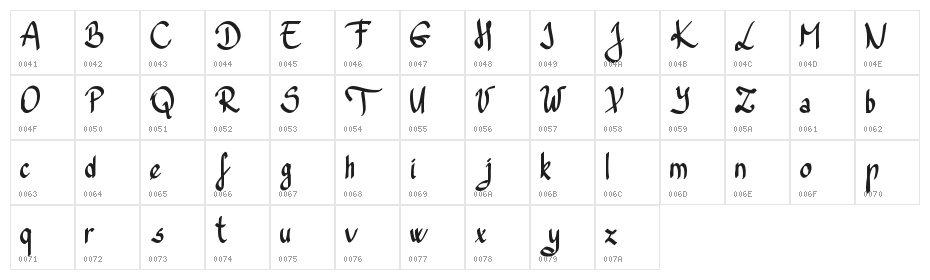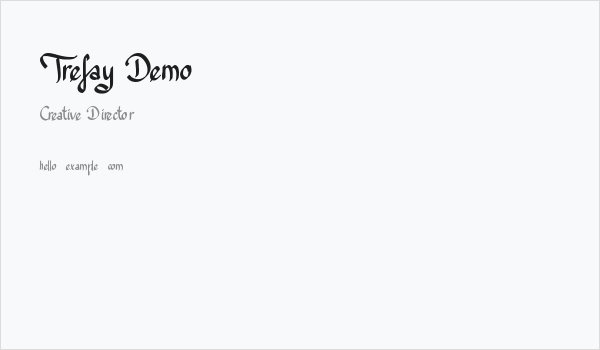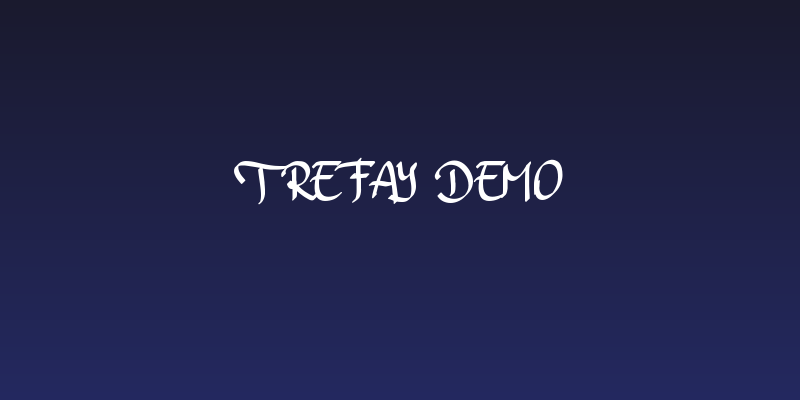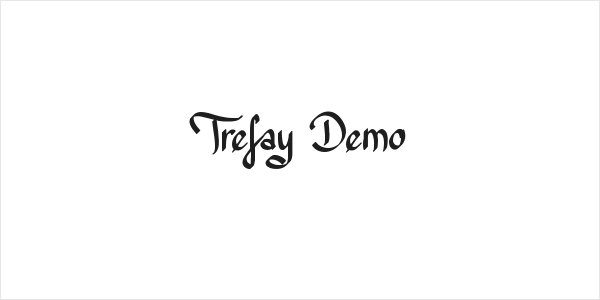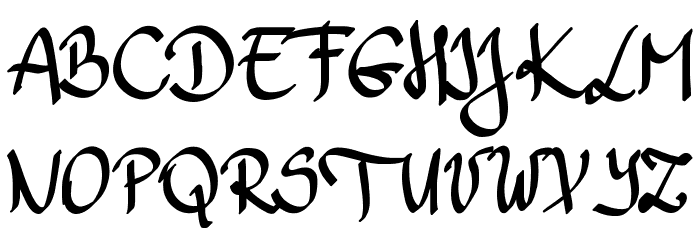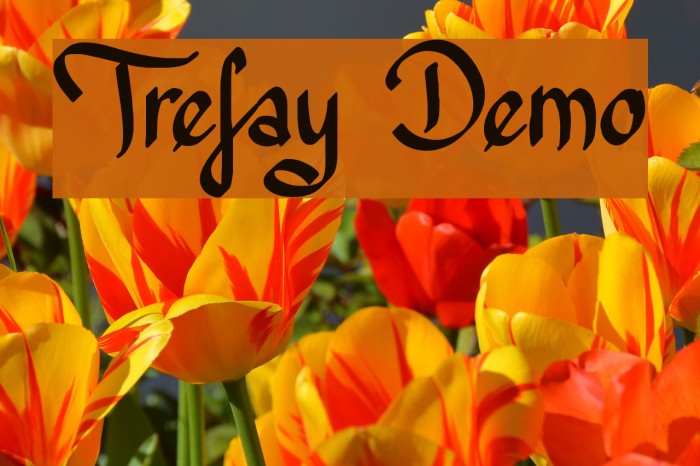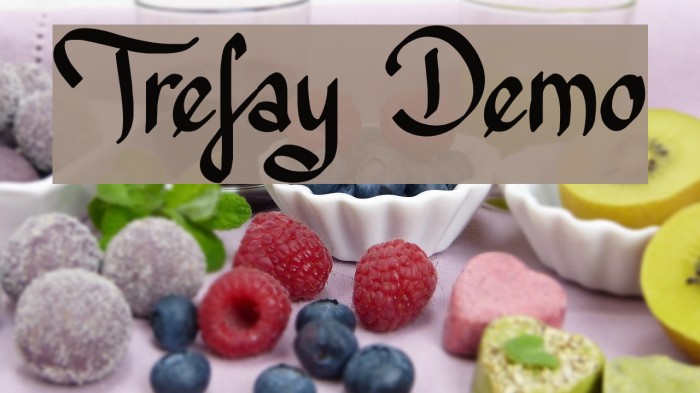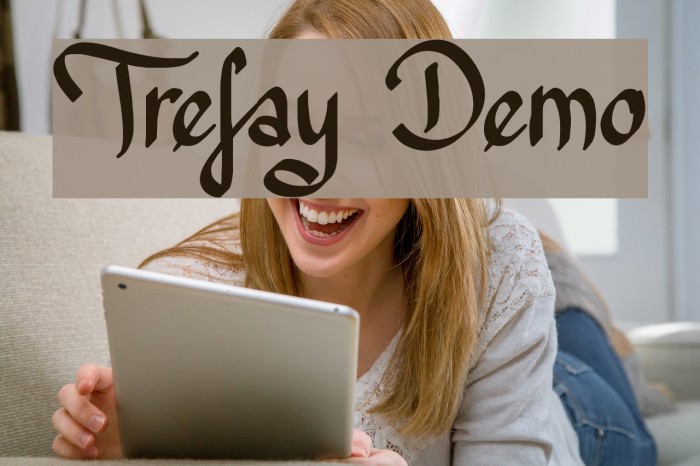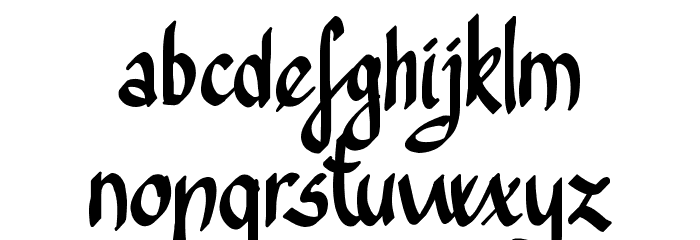
Trefay Demo Font
Trefay Demo Description
This font features a dynamic and flowing script style, characterized by its elegant and artistic strokes. The uppercase letters exhibit a bold presence with sweeping curves and intricate details, while the lowercase letters maintain a consistent fluidity, enhancing readability. The font's design is reminiscent of traditional calligraphy, with a modern twist that adds a unique flair. Its distinct character is further emphasized by the varying stroke thickness, which provides a sense of movement and grace. The numerals and special characters are crafted with the same attention to detail, ensuring a cohesive look across all elements.